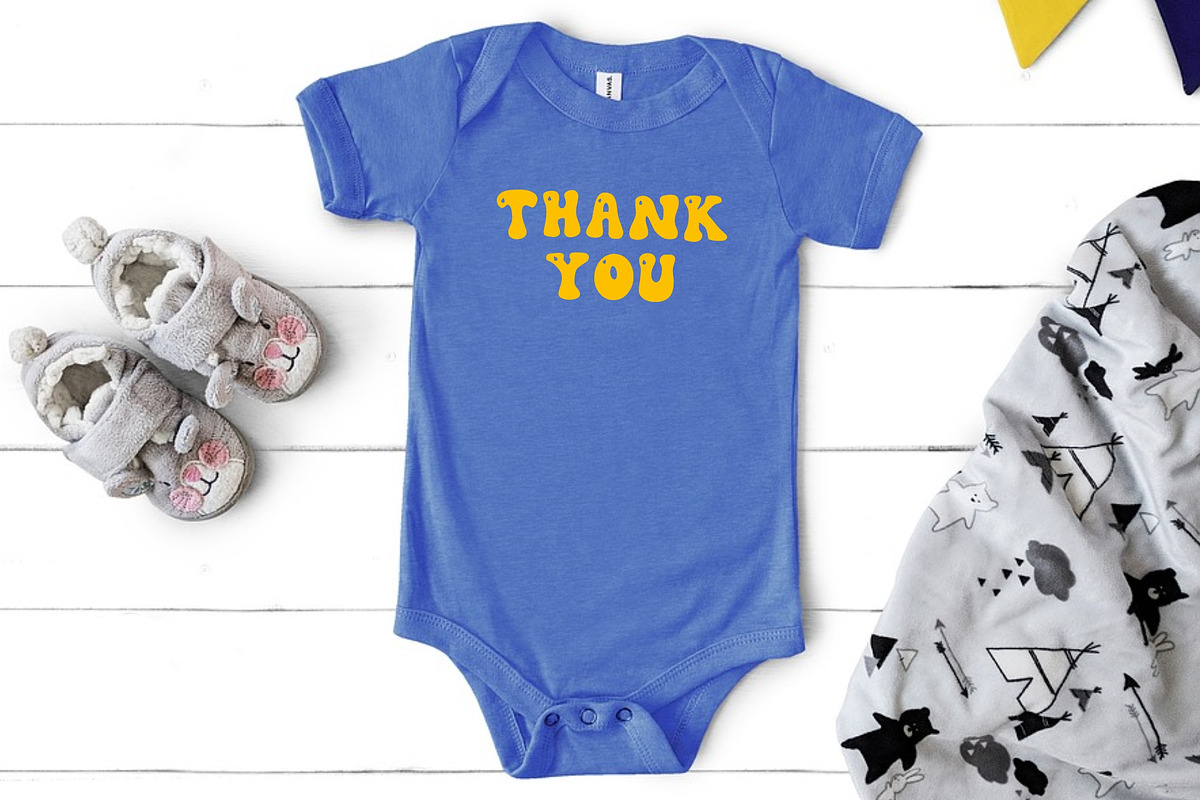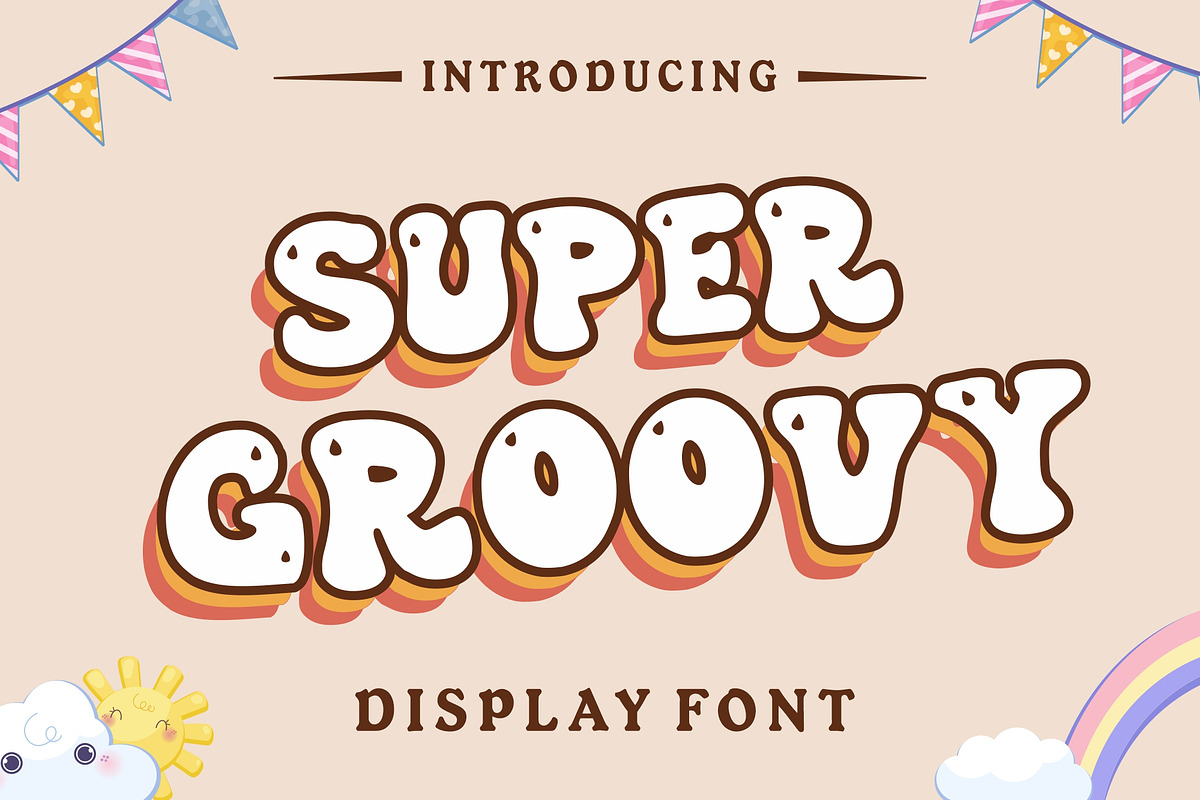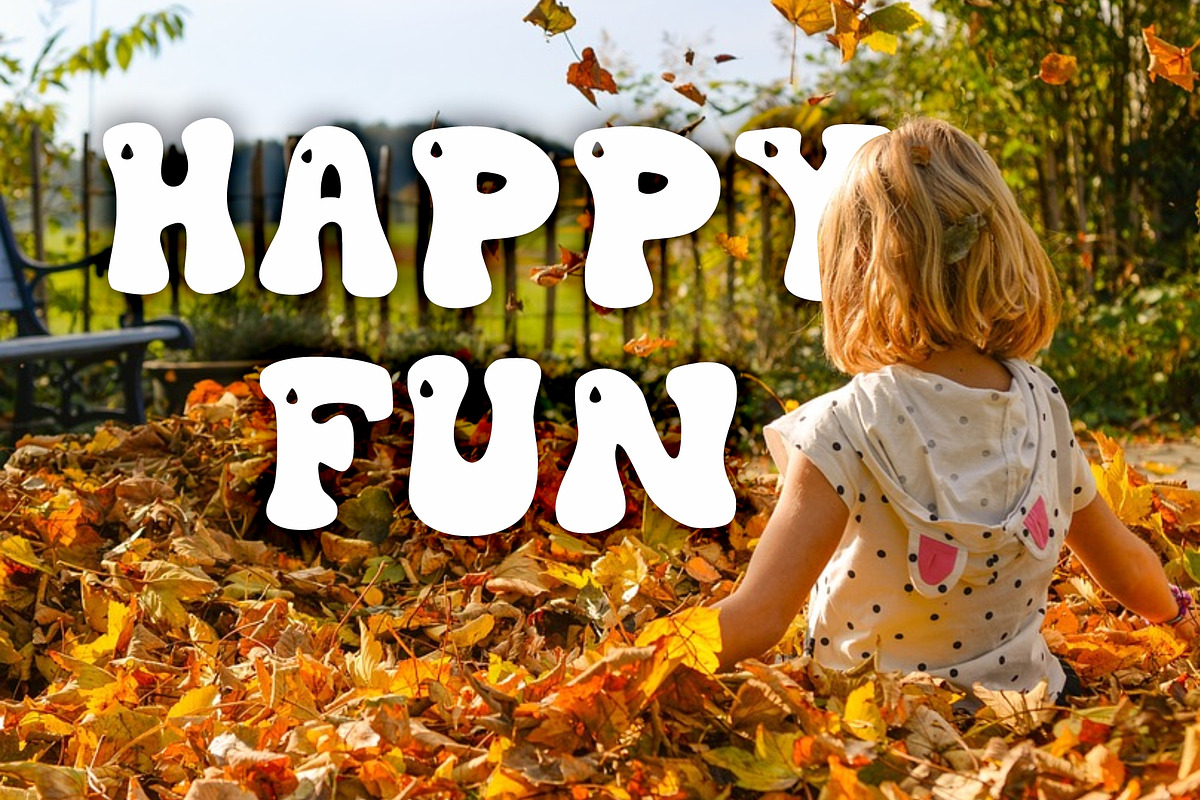
Super Groovy
Super Groovy is a sweet, cute, and unique font. The perfect font for designing t-shirts, tote bags, hats, stickers, wedding invitations, logos, cards, quotes, and more! Super Groovy will make any creative idea stand out and amaze you!